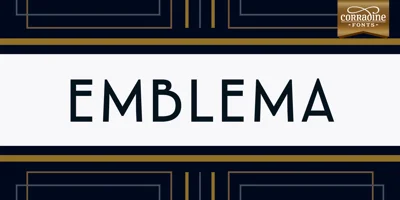
Emblema Font
The Emblema Font is perfect for heraldic designs, coat of arms creations, military insignia, prestigious awards ceremonies, government institutional materials, ceremonial invitations, official documentation, and distinguished organizational branding. This authoritative typeface excels in projects for government agencies, military organizations, prestigious institutions, ceremonial events, and businesses requiring formal typography that conveys honor, tradition, and institutional authority with dignified elegance.
What makes the Emblema Font exciting is its powerful embodiment of heraldic tradition with ceremonial dignity and institutional authority. The font features distinguished letterforms with formal proportions and emblematic details that immediately convey prestige, honor, and official recognition. Its authoritative character and ceremonial gravitas make it perfect for organizations seeking to establish legitimacy, tradition, and formal recognition. The font's institutional heritage and dignified presence create immediate respect and credibility in formal contexts.
The Emblema Font family includes ceremonially-designed variations: Light Honor, Regular Dignity, Bold Authority, Heavy Prestige, Ceremonial, and Official versions. Each style maintains the font's emblematic character while offering different levels of formal authority and institutional weight for diverse ceremonial applications. The family also features heraldic symbols, ceremonial ornaments, official crests, and prestigious decorative elements that enhance formal and institutional design projects.
Whether you're developing institutional brand identities, creating ceremonial marketing materials, or designing official promotional campaigns, the Emblema Font provides the ultimate solution for projects requiring authoritative, formal typography. This exceptional typeface brings genuine institutional dignity to design work, making it an essential resource for designers working with government organizations, military institutions, and prestigious entities requiring ceremonial elegance and official recognition.